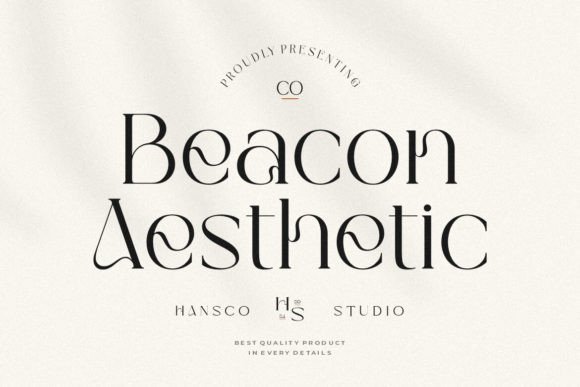
The Perfect Blend of Style and Sophistication
As a designer, there’s no feeling quite like the rush of excitement when a project starts to come together. You’ve poured your heart and soul into every detail, and suddenly, it all clicks into place. That’s exactly what happens when you choose the right font – and for many designers, that font is the Beacon Aesthetic Font.
This stylish serif font is more than just a pretty face; it’s a carefully crafted tool designed to elevate your projects to new heights. With its unique blend of modern aesthetics and timeless sophistication, the Beacon Aesthetic Font is the perfect choice for any project that demands a touch of refinement and contemporary elegance.
Beacon Aesthetic Font Key Features
- Unique Characteristics: Beacon Aesthetic Font features a distinctive, hand-drawn aesthetic with intricate details and subtle flourishes, making it ideal for creative projects that require a touch of elegance.
Beacon Aesthetic Font Review
Overall, I think the Beacon Aesthetic Font is a great choice for designers who want to add a touch of elegance and sophistication to their projects. ✨ It’s got a clean and modern feel that works well for a variety of applications, from branding to editorial content.
Here are some of the things that work well with the Beacon Aesthetic Font:
- ✨ Beautifully crafted letterforms that are both aesthetically pleasing and highly legible.
- ✨ A wide range of weights and styles to choose from, making it easy to find the perfect fit for your project.
- ✨ Supports multiple languages, making it a great choice for global brands.
That being said, there are a few limitations to consider:
- ⚠️ The font may not be suitable for very small text sizes, as the letterforms can become somewhat blurry.
- ⚠️ Some users have reported issues with kerning and spacing, particularly in certain font combinations.
Overall, I think the Beacon Aesthetic Font is a solid choice for designers who want a high-quality, versatile font that’s easy to use. With a little experimentation and patience, you can create some truly stunning designs with this font.
For the best results, use the Beacon Aesthetic Font for headings, titles, and short paragraphs. It pairs well with minimalist and modern designs. You can also use it for social media graphics, logos, and branding materials.
Alternatives to Beacon Aesthetic Font
Monserrat is a modern sans-serif font, perfect for digital design, especially when you need a clean and minimalist look. It’s ideal for titles, headings, and body text in applications, websites, and mobile interfaces. Montserrat is more geometric and structured compared to Beacon Aesthetic Font, which has a softer and more rounded feel.
Merriweather is a classic serif font with a timeless elegance, suitable for traditional and formal designs. It’s an excellent choice for books, magazines, and corporate materials that require a sense of sophistication and professionalism. Merriweather has a more formal and traditional feel compared to Beacon Aesthetic Font, which has a modern and airy quality.
Q: What is the recommended line spacing for Beacon Aesthetic Font?
The recommended line spacing for Beacon Aesthetic Font is between 120% and 150% of the font size. This range ensures proper legibility and maintains the font’s aesthetic balance. For digital applications, consider using line heights between 1.2 and 1.5 times the font size, depending on the device and screen resolution.